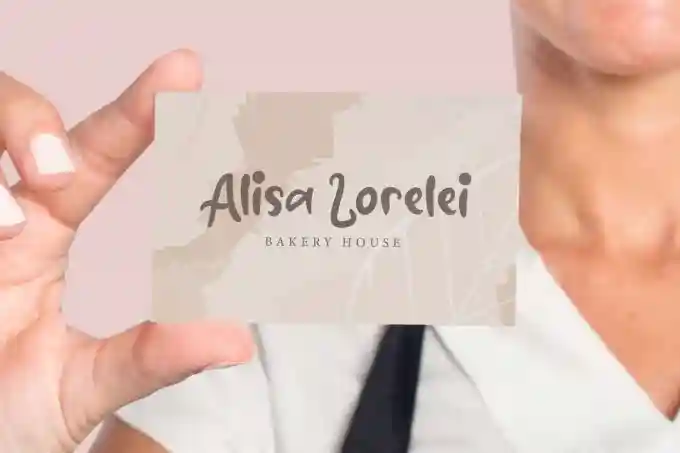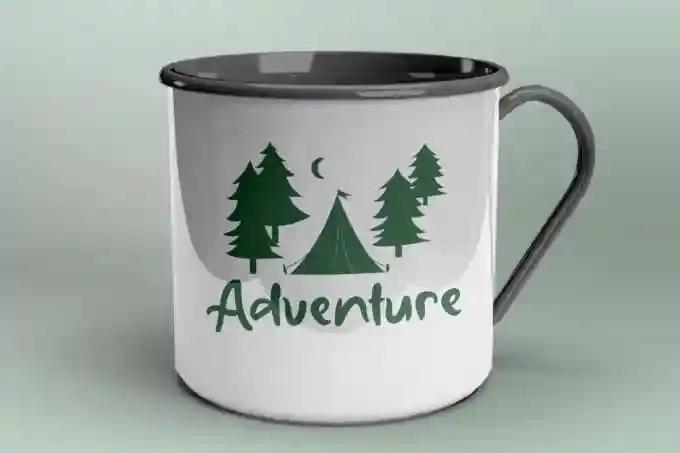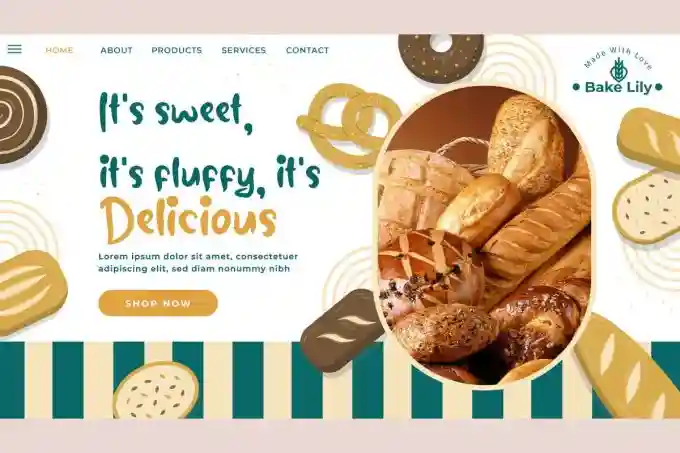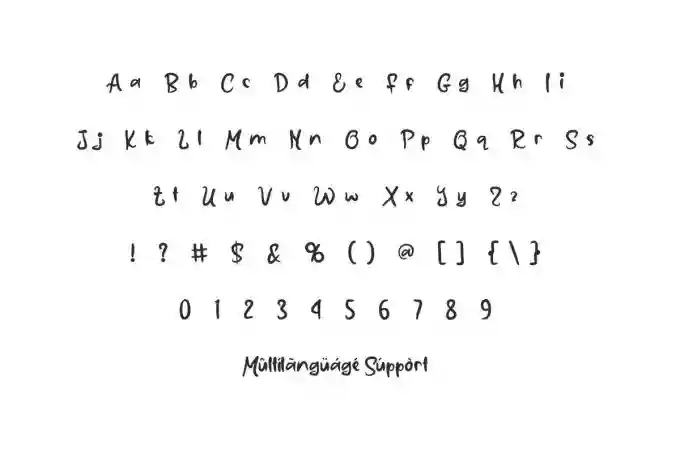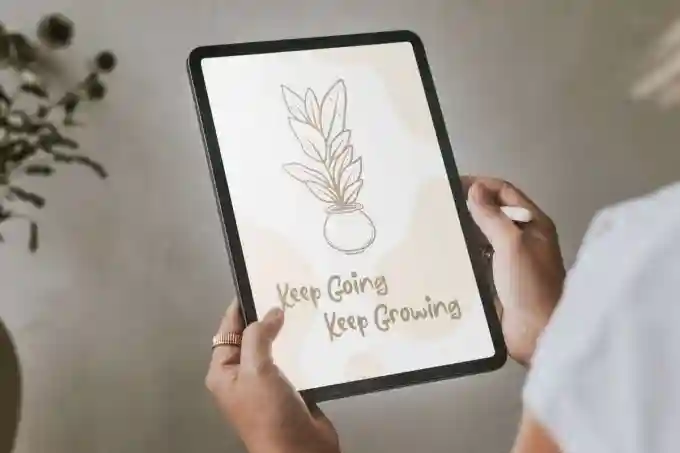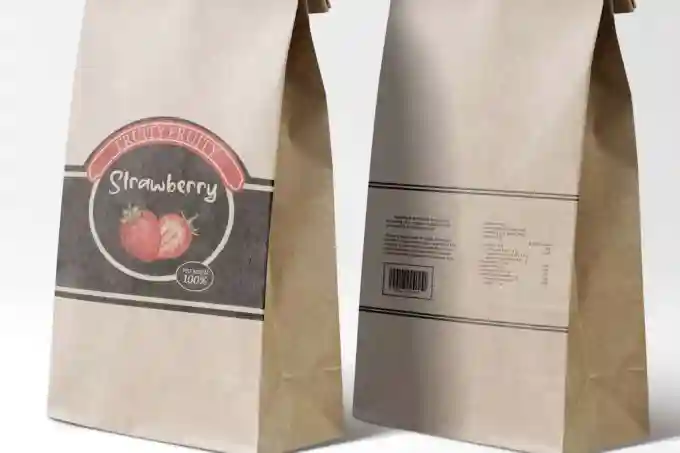
Sad Morning Font is a natural handwriting font, by VinType Studio. This font won’t give sadness to your design as its name, but the beauty of the handwriting that will make your design look adorable. This font will be suitable for many industries, such as bakery and pastry, cafe, florist, advertisement, author and writer, beauty product, florist, handicrafts, homeware, printing, publishing, and more!
Sad Morning Font includes full set of Uppercase and Lowercase Basic Characters, and Numerals and Punctuation. The sweet look of this font will make you want to use it in various types of designs, such as business card, poster, brand image, cover, custom design, brochure, label, packaging design, quote, screen printing, website, etc.